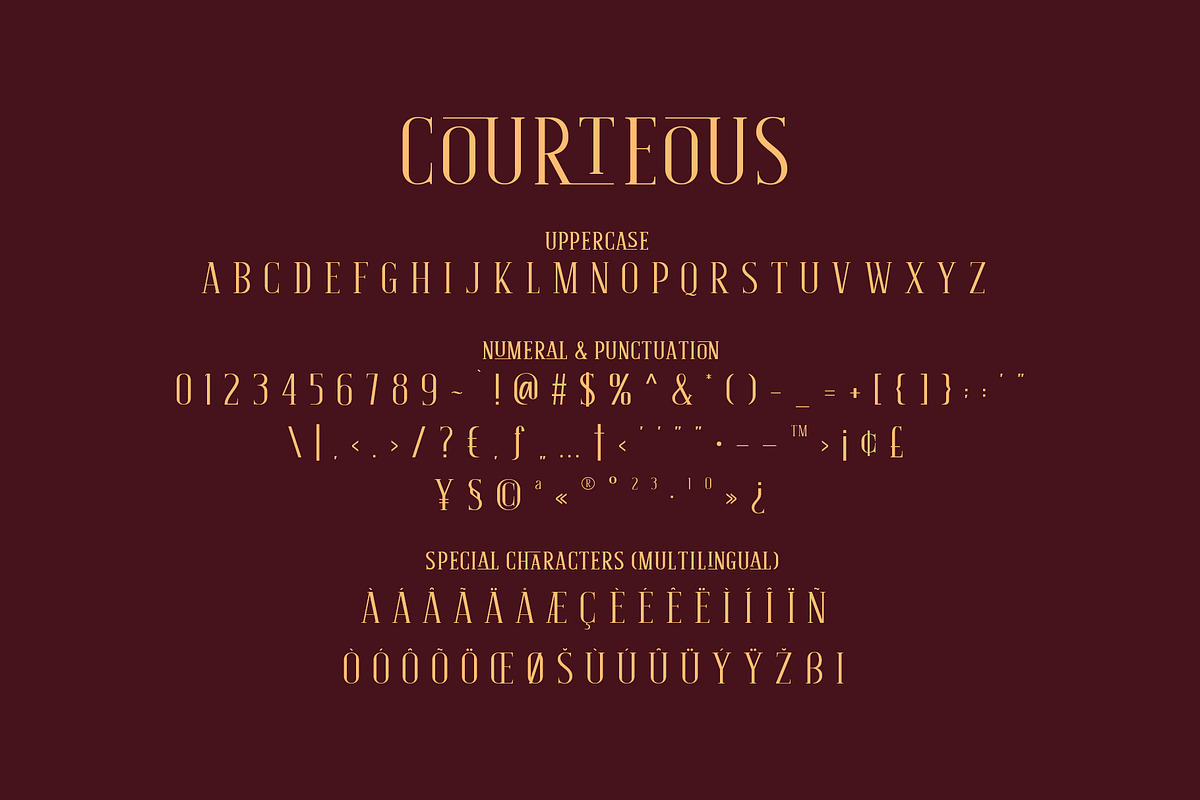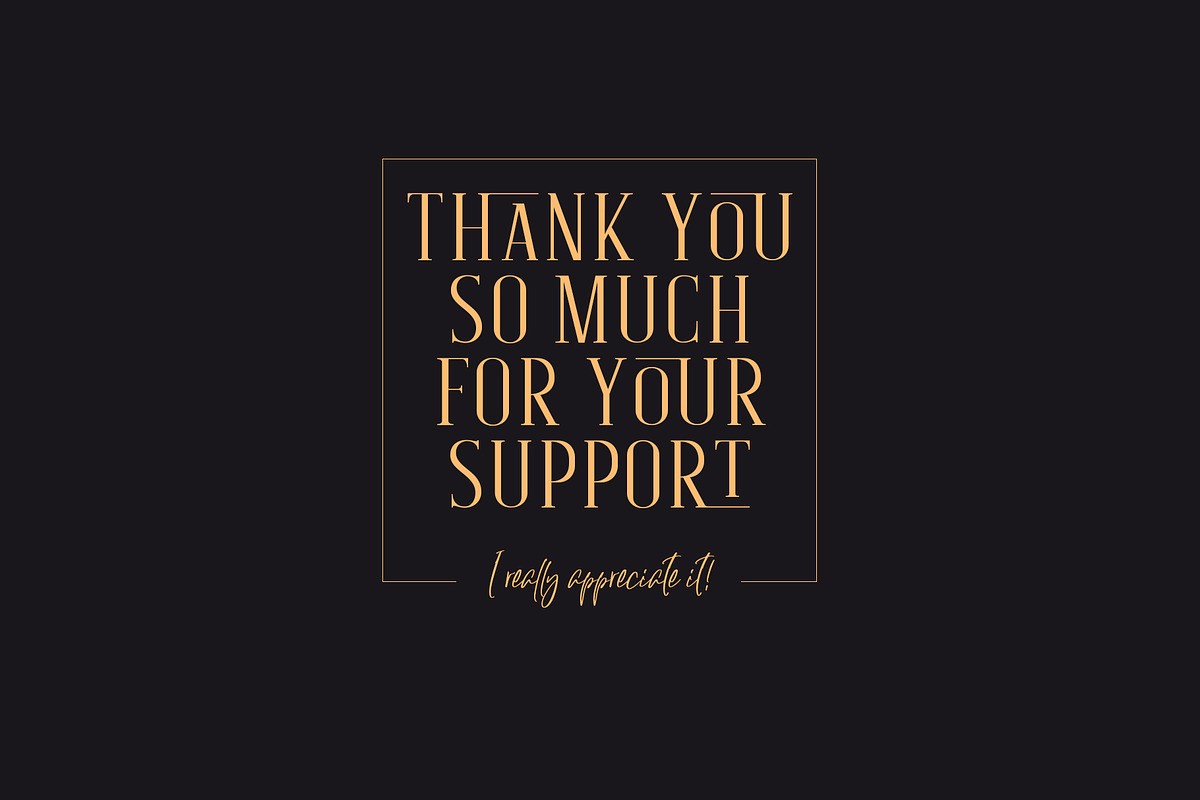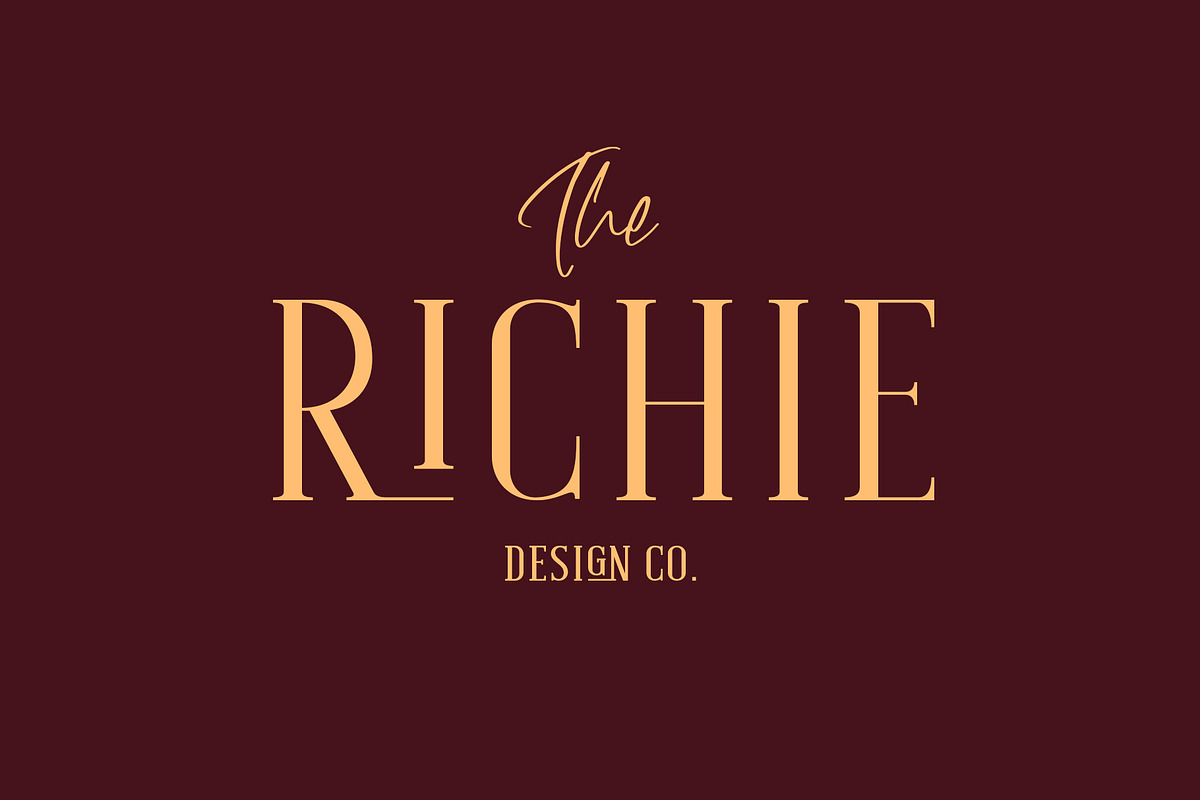
Courteous // Elegant Serif
Introducing "Courteous" - Serif font with absolute elegance and completely designed with stylish ligature.
Courteous is absolute elegance. It's semi-condensed serif font with straight and consistent shape in every letter that will give a taste of professional feels to any design. Adding ligature will make it more stylish and modish, very suitable for fashion or beauty projects. Courteous also have the bold version that will looks more gentle.
- Regular and Bold Version
- Uppercase and Lowercase are the same
- 35 Ligature that only works with lowercase, so you can access regular letter by using only uppercase. Ligature: od ai ad ap ed eb ab ib ob ud id ub ou rt yl al le an lu ur gn ha ri ce ho ry ev in ro um ox ve as on
- Numbers, symbols, and punctuation
- Multi language support